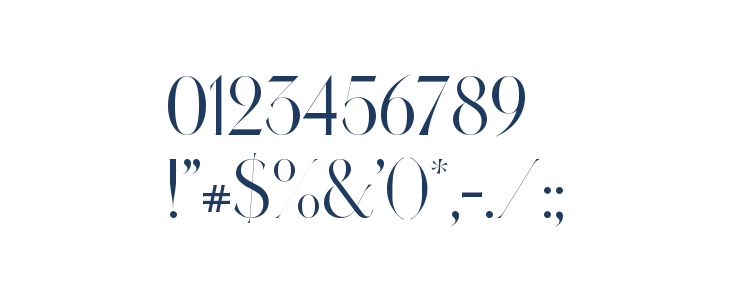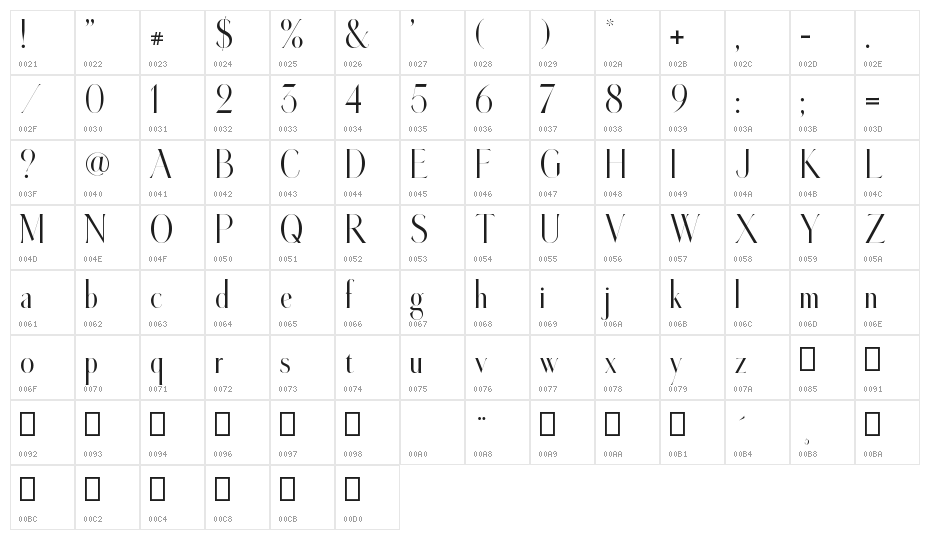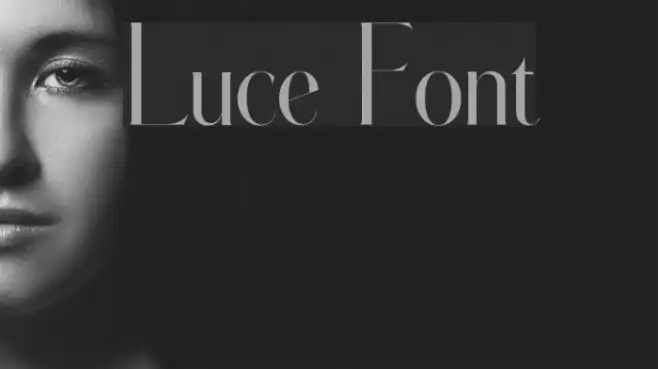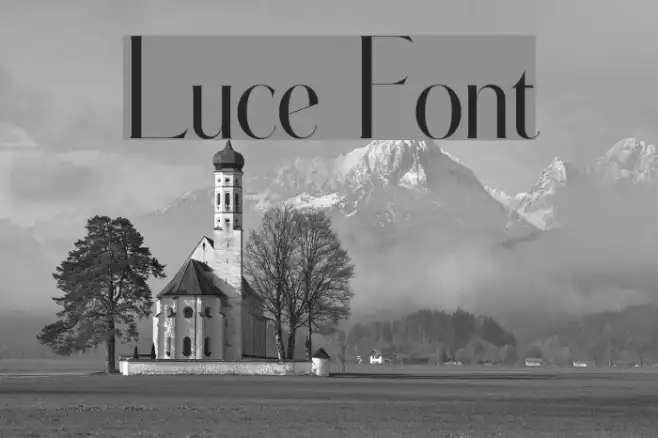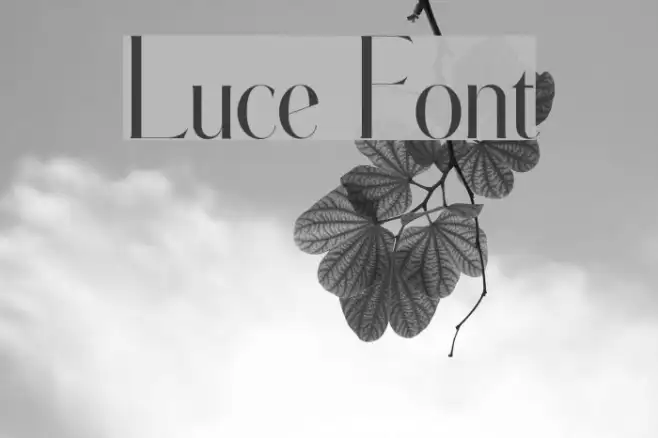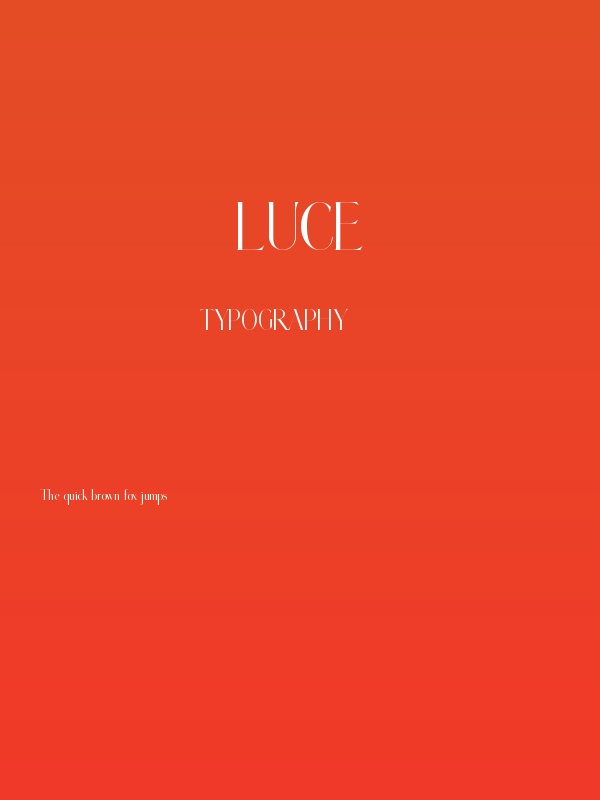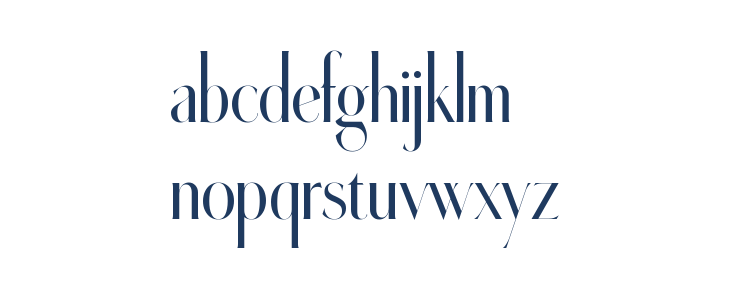
Luce Font
Luce Description
This font features a striking contrast between thick and thin strokes, giving it a sophisticated and elegant appearance. The uppercase letters are tall and slender, with a modern flair that is both stylish and refined. The lowercase letters maintain this elegance, with a slight curvature that adds a touch of softness to the overall design. The numerals are equally stylish, with a consistent height and a sleek, contemporary look. Special characters are designed with the same attention to detail, ensuring a cohesive and polished appearance throughout. This font is ideal for projects that require a touch of class and modernity.
| Overall Style | Elegant and modern |
| Proposed Projects | Ideal for luxury branding, fashion magazines, wedding invitations, and high-end product packaging. |